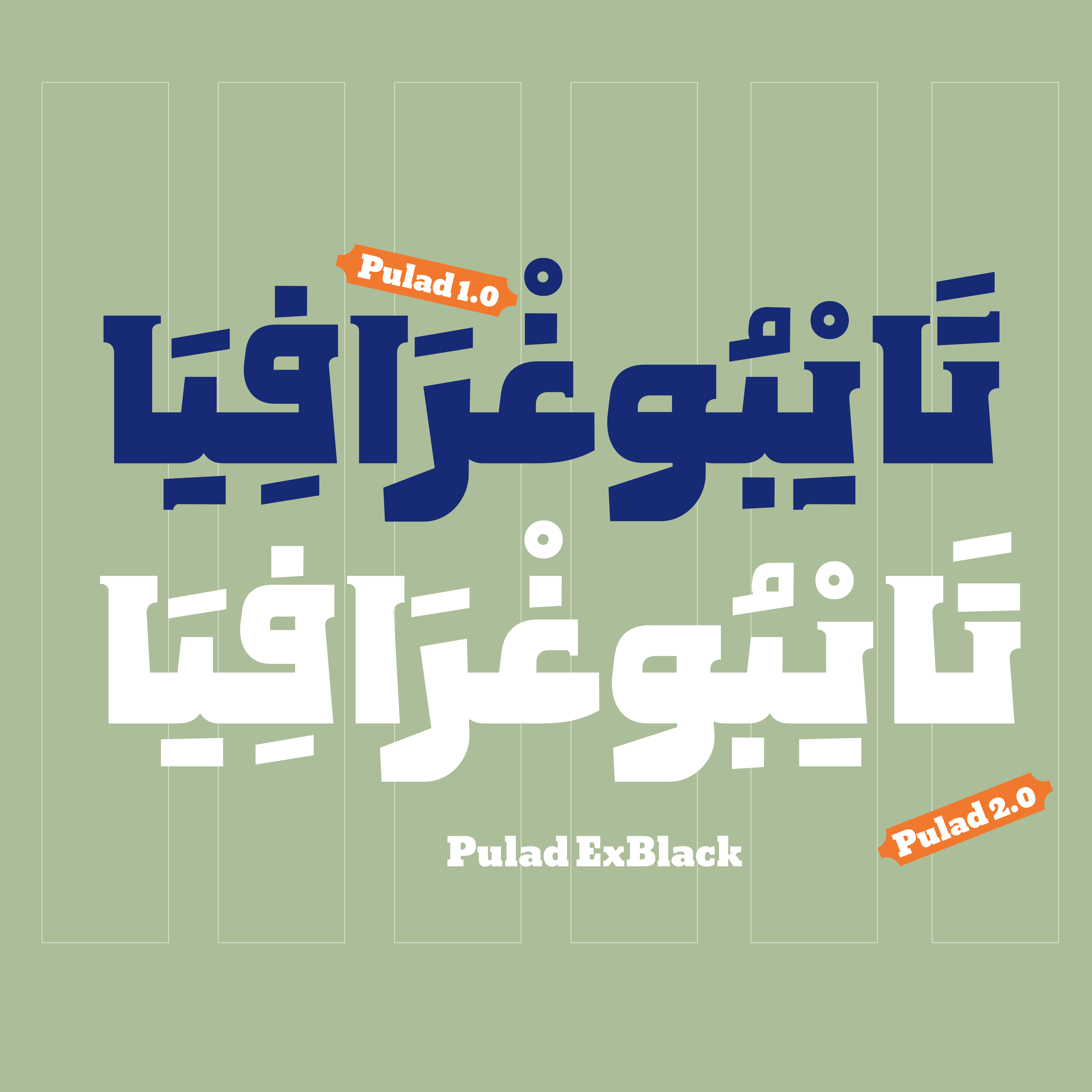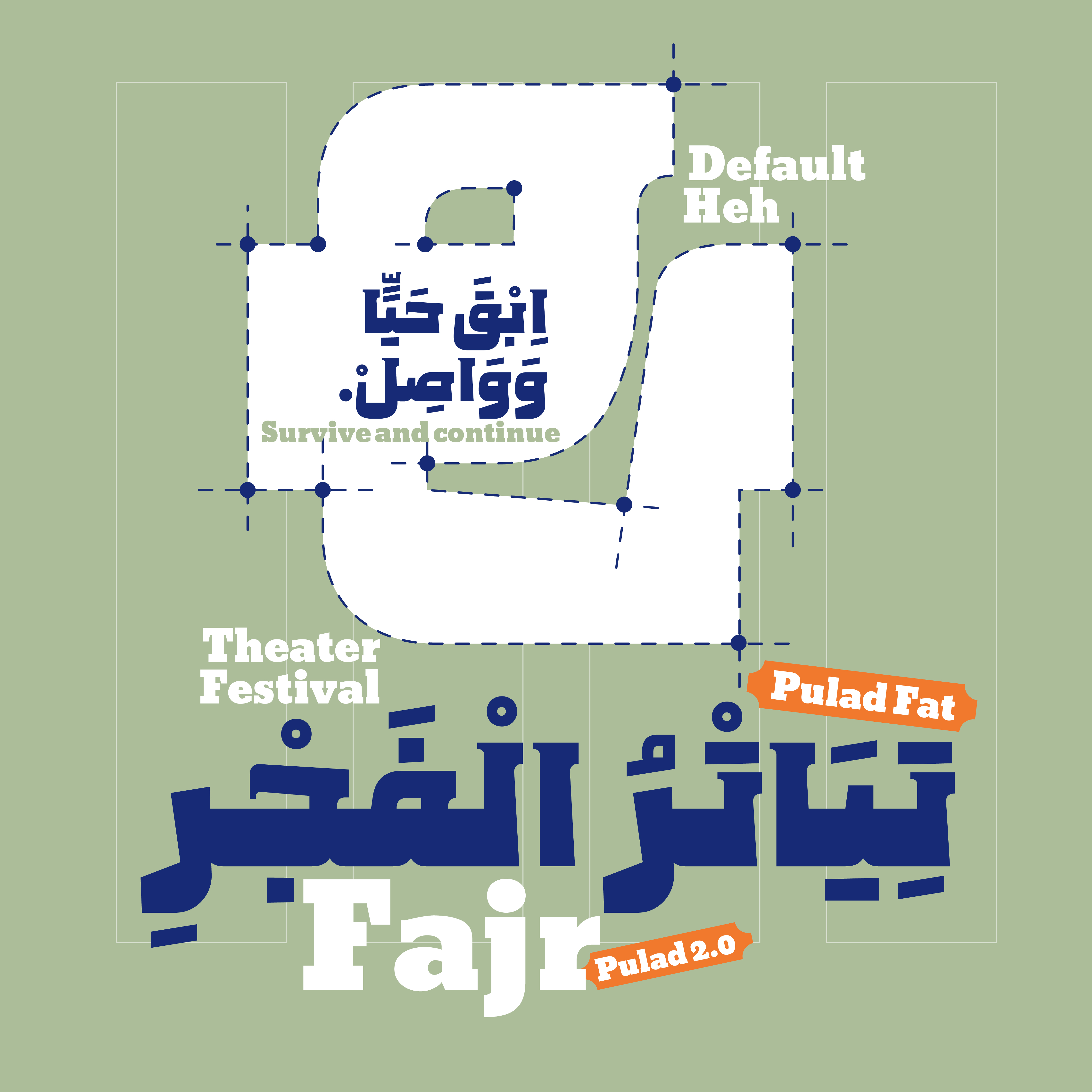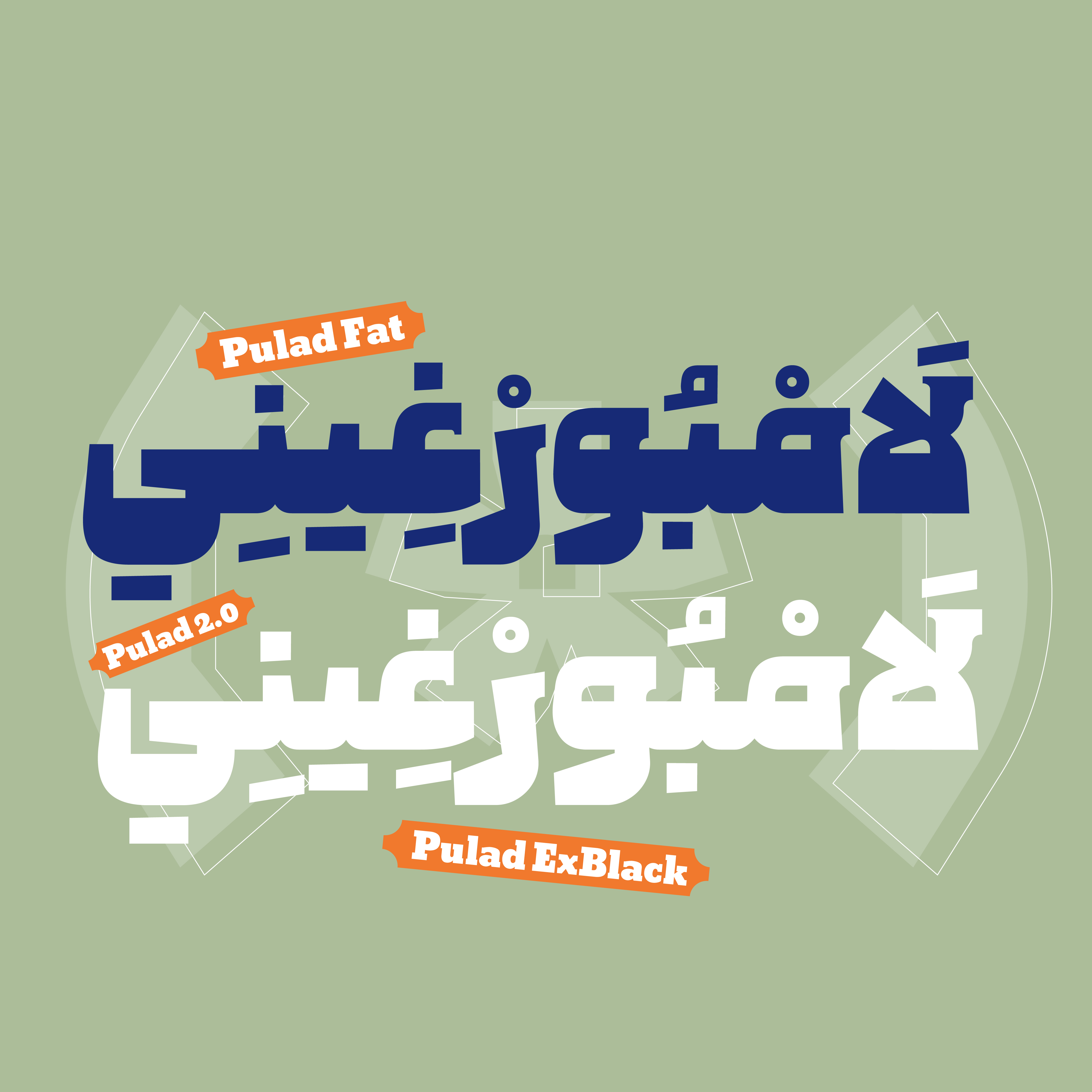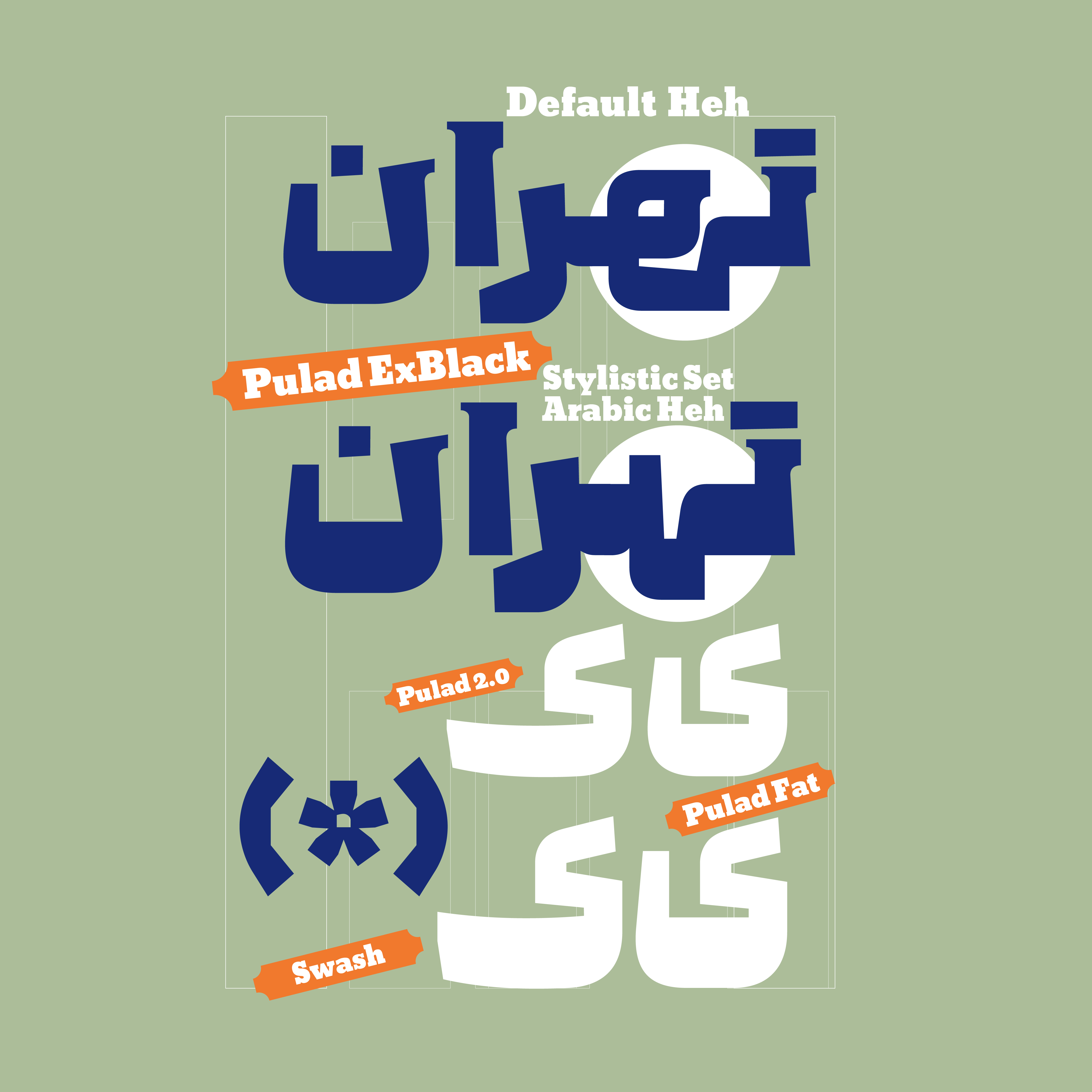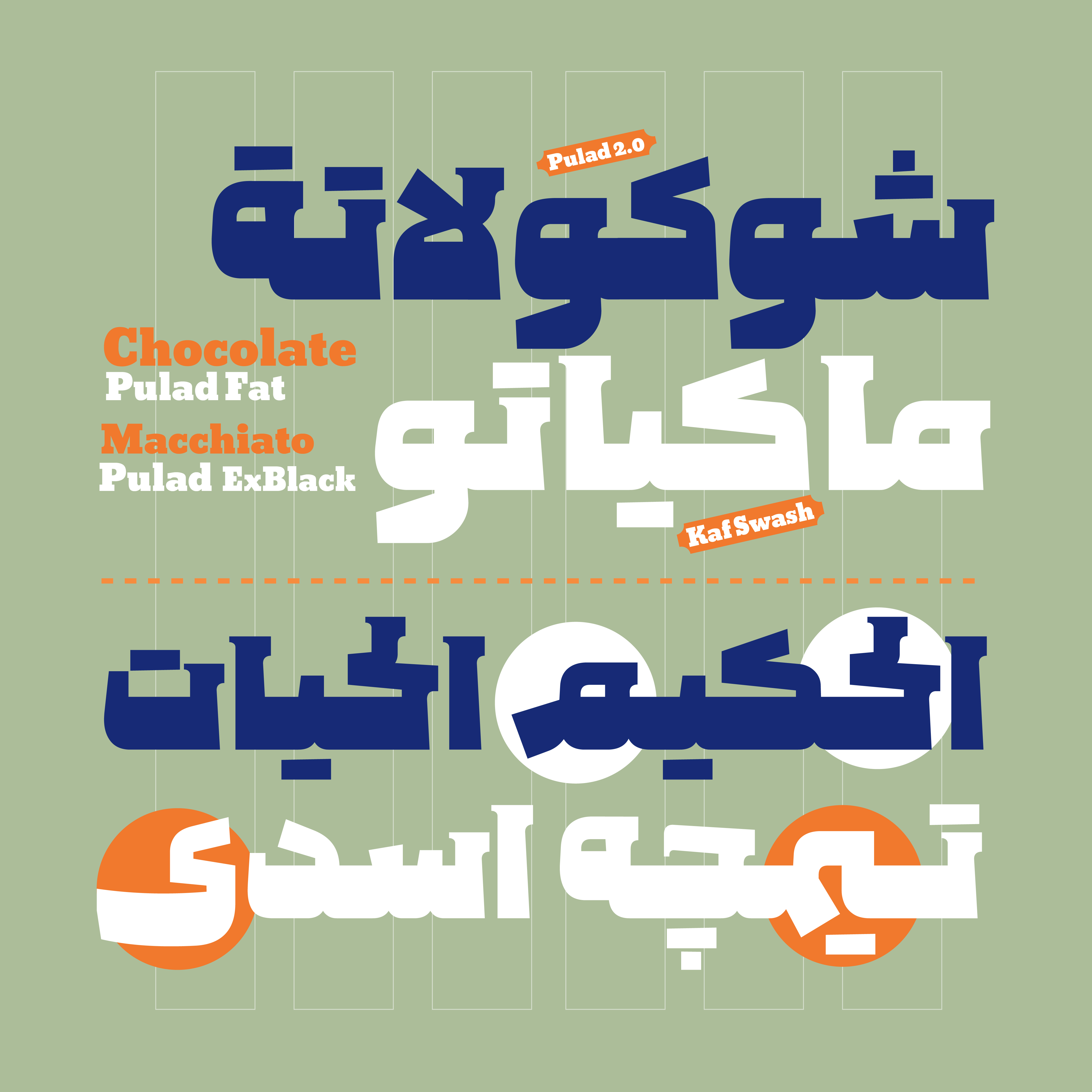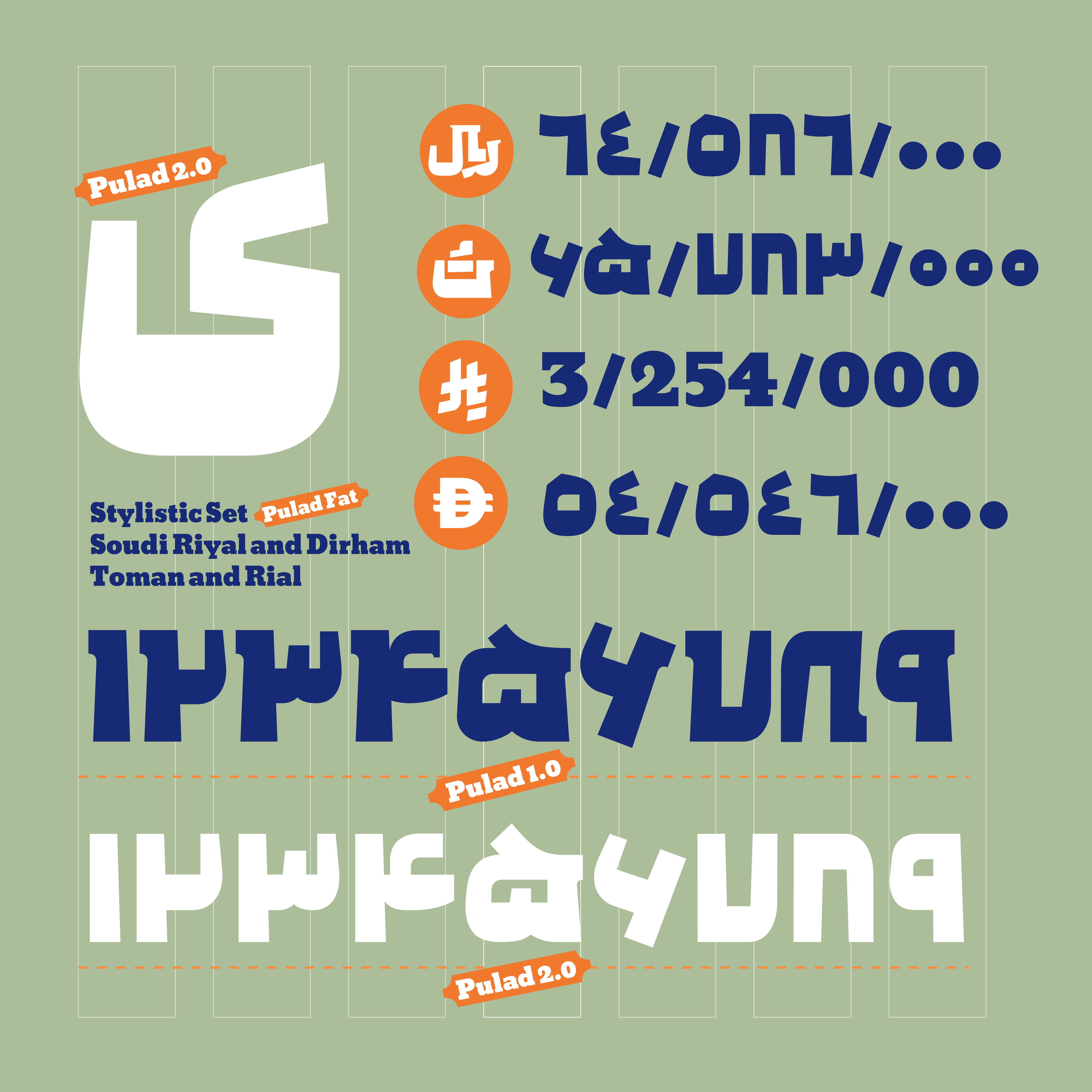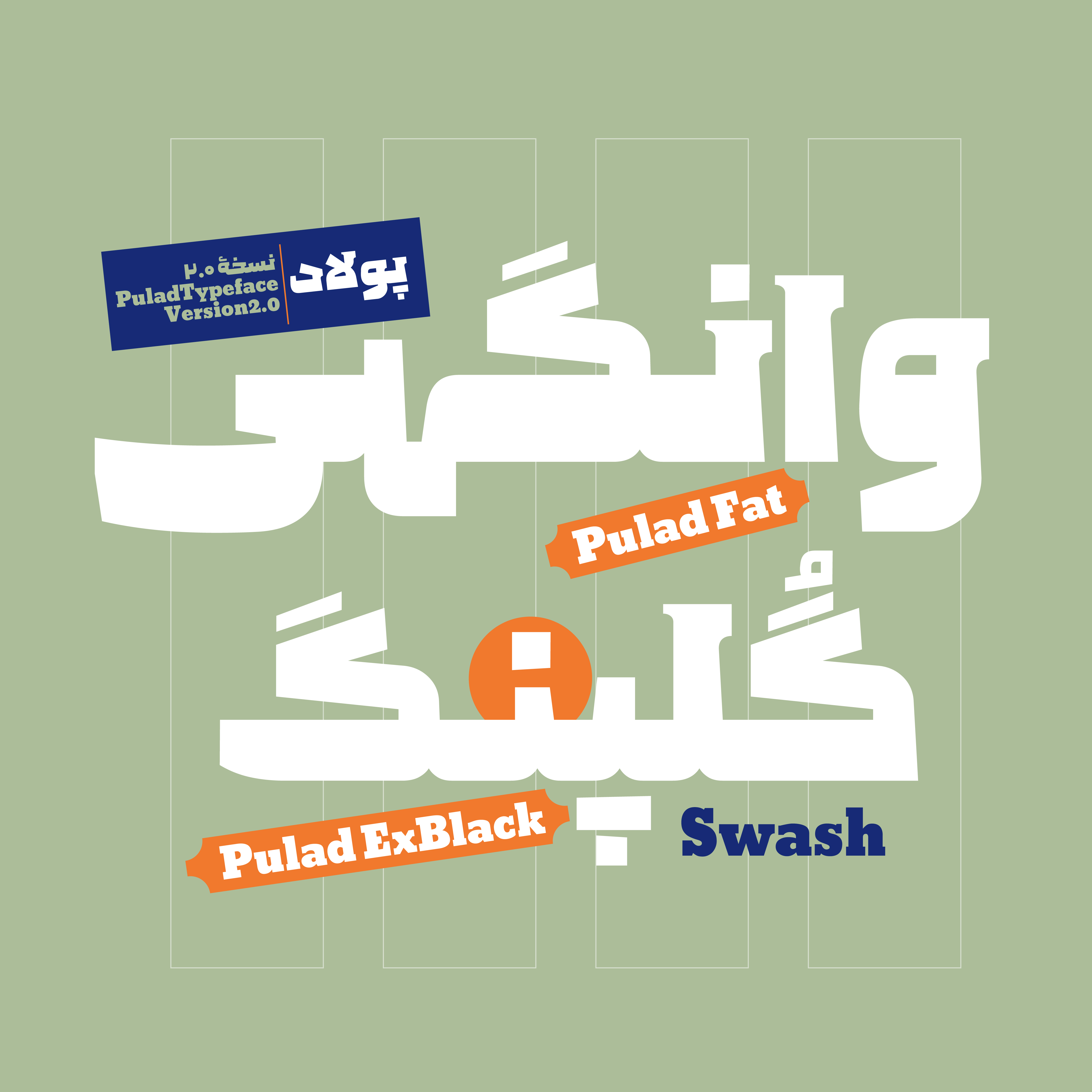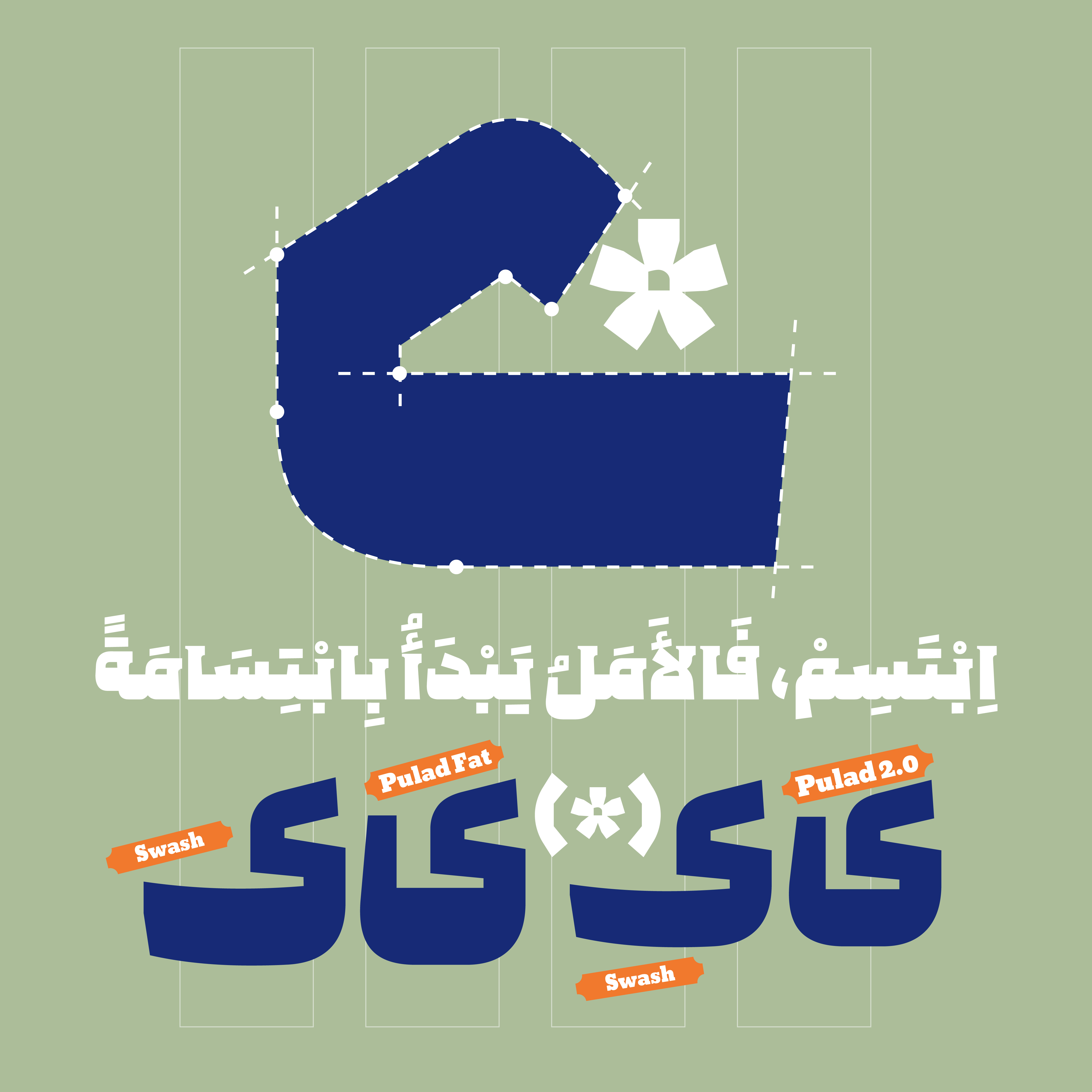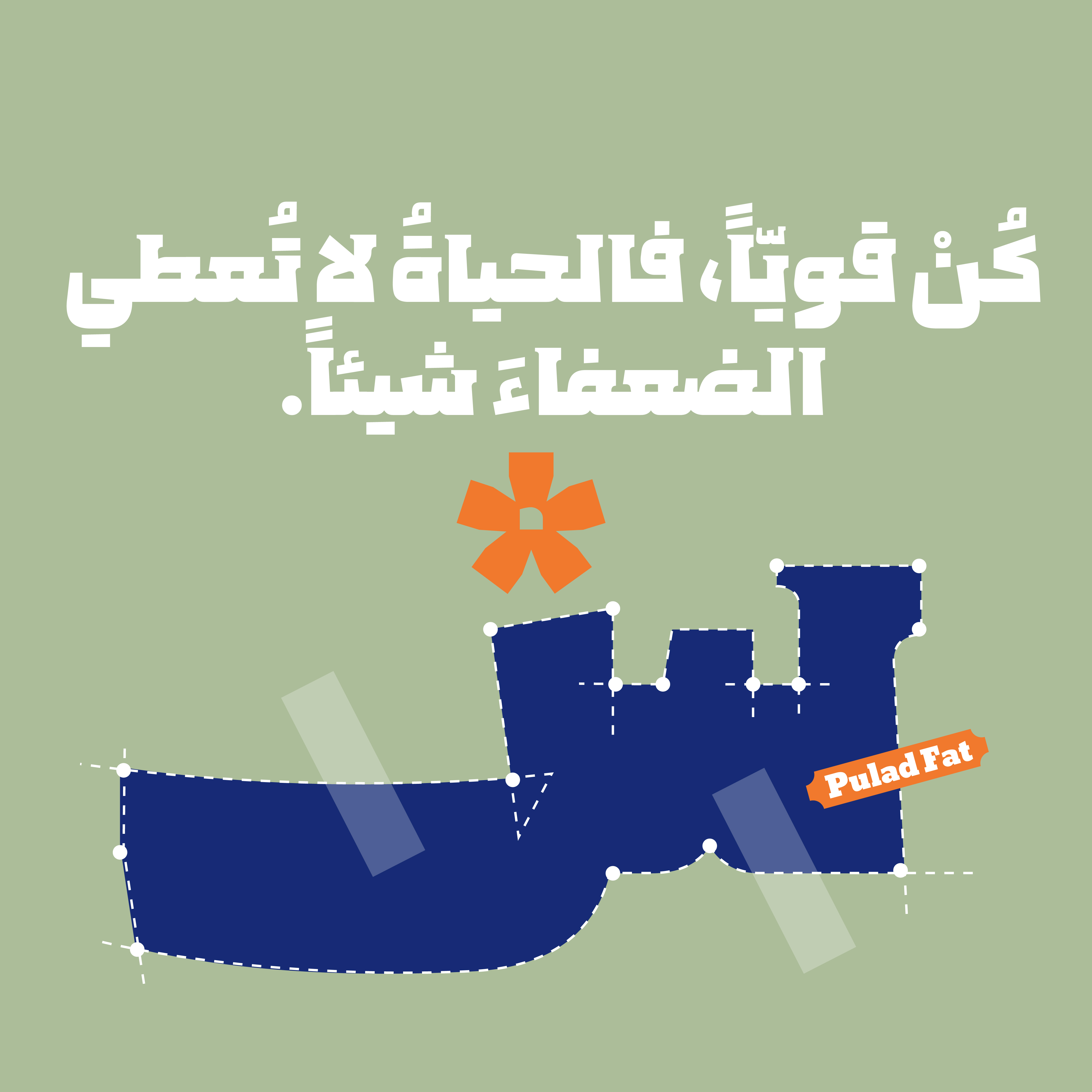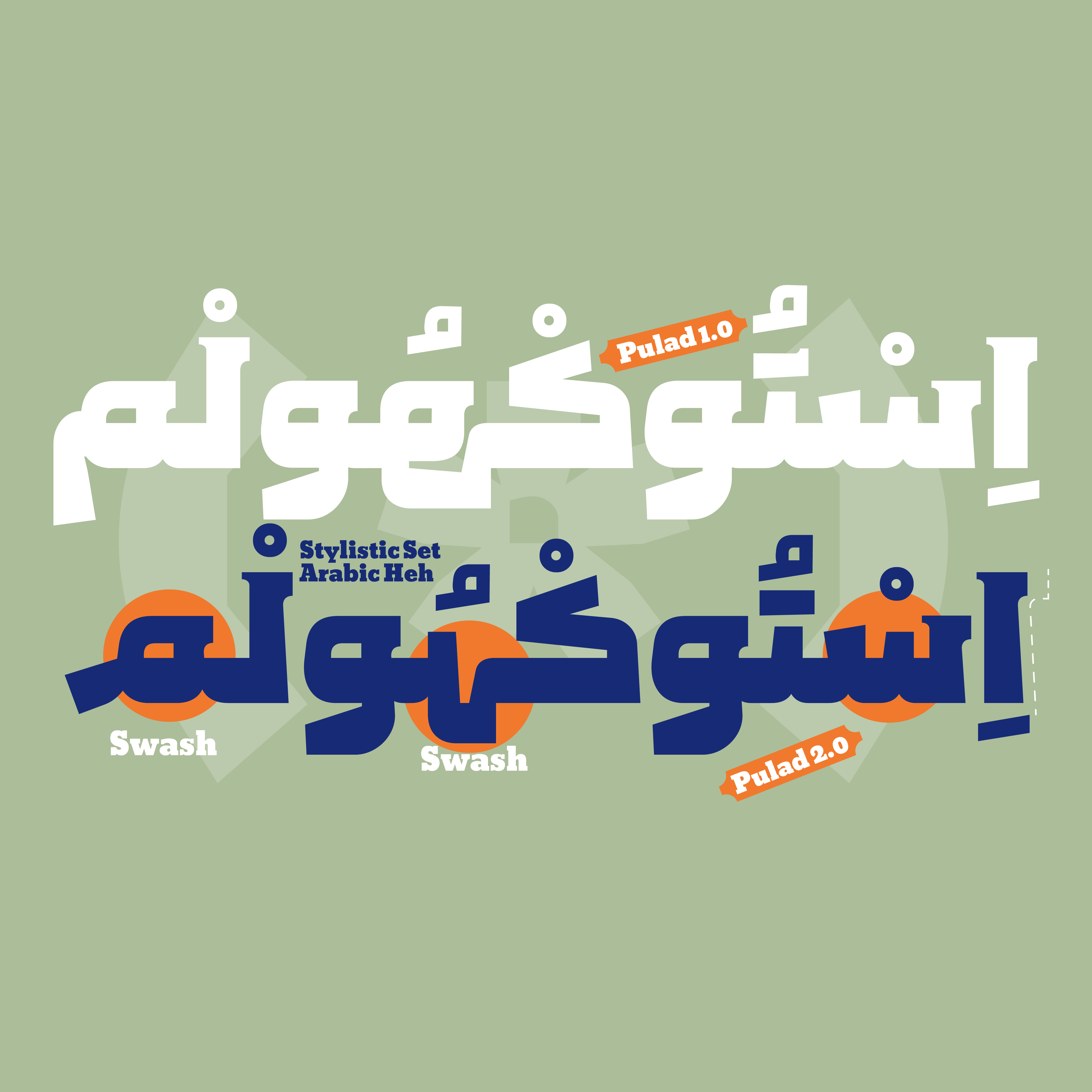
Pulad
The Poulad typeface is a display typeface with a creative, kind, introspective, and strong personality. Designed for titles and short lines, this font combines a solid yet pleasant character. Poulad is an ideal choice for headlines, titles, short texts, advertising spaces, and social media content.